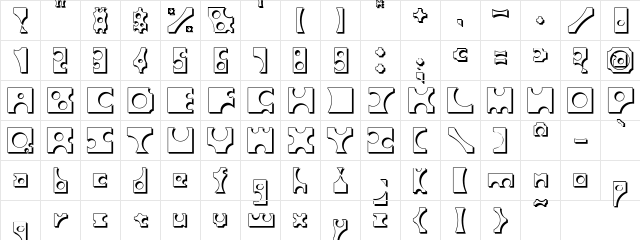
Toolego-Shadow Regular
Design Context for Toolego-Shadow
Toolego-Shadow is built around its visual character rather than neutral utility - its distinctive forms are designed to make an impression at display sizes.
Font Pairing: Pair with a clean neutral sans-serif for body copy to let Toolego-Shadow's character lead without overwhelming the composition.
Pro Tip: Use Toolego-Shadow exclusively at display sizes - it was designed to be seen, not read at length. Let a neutral companion handle body copy.